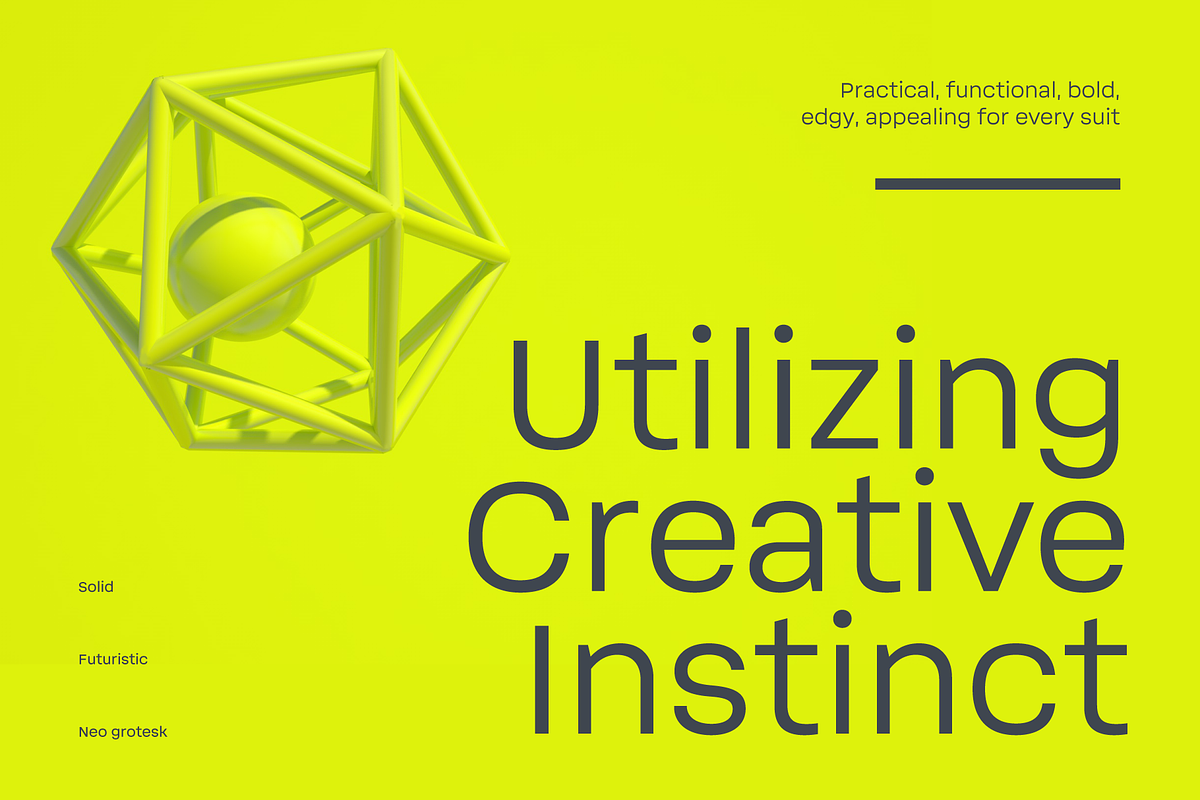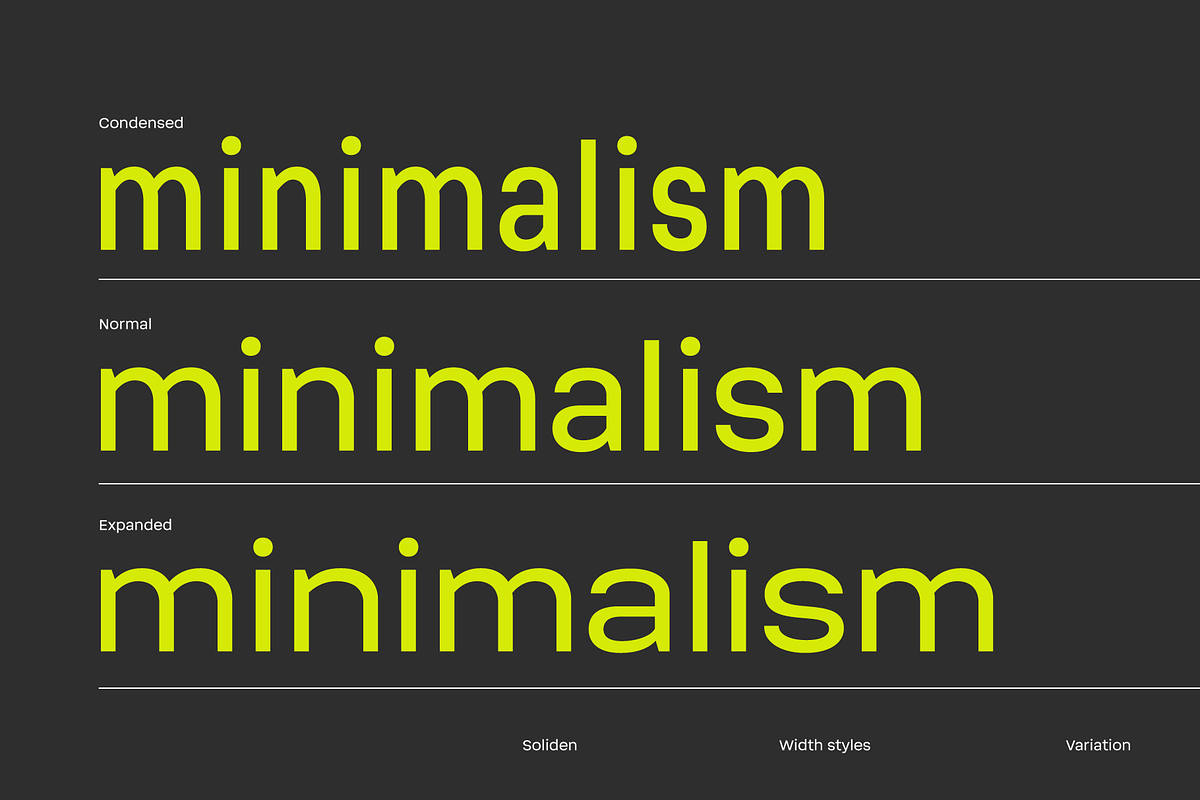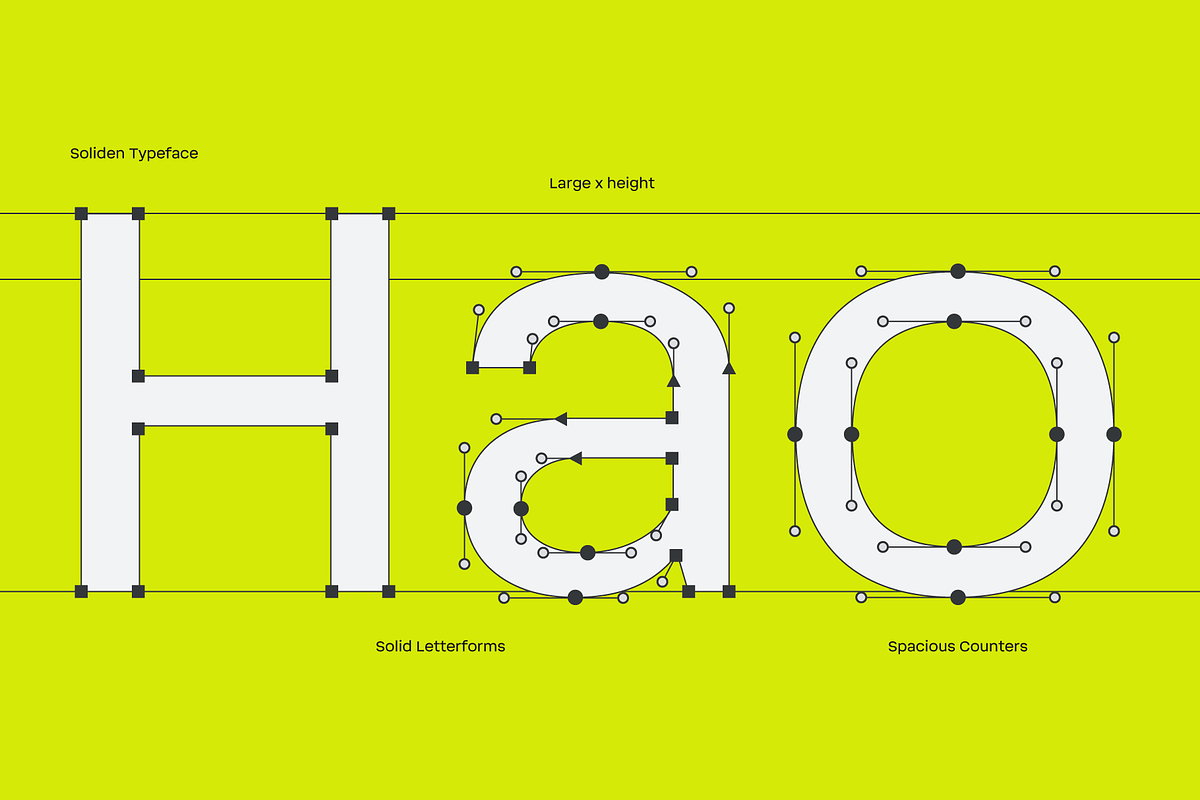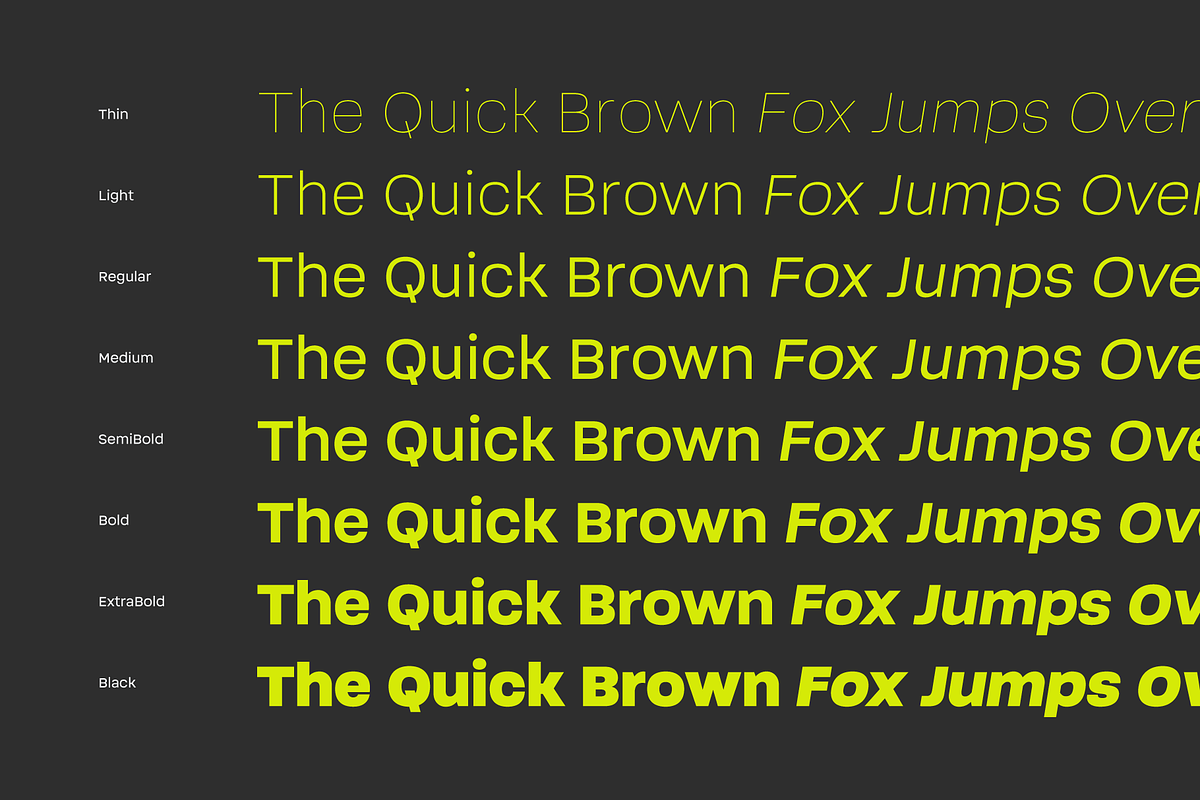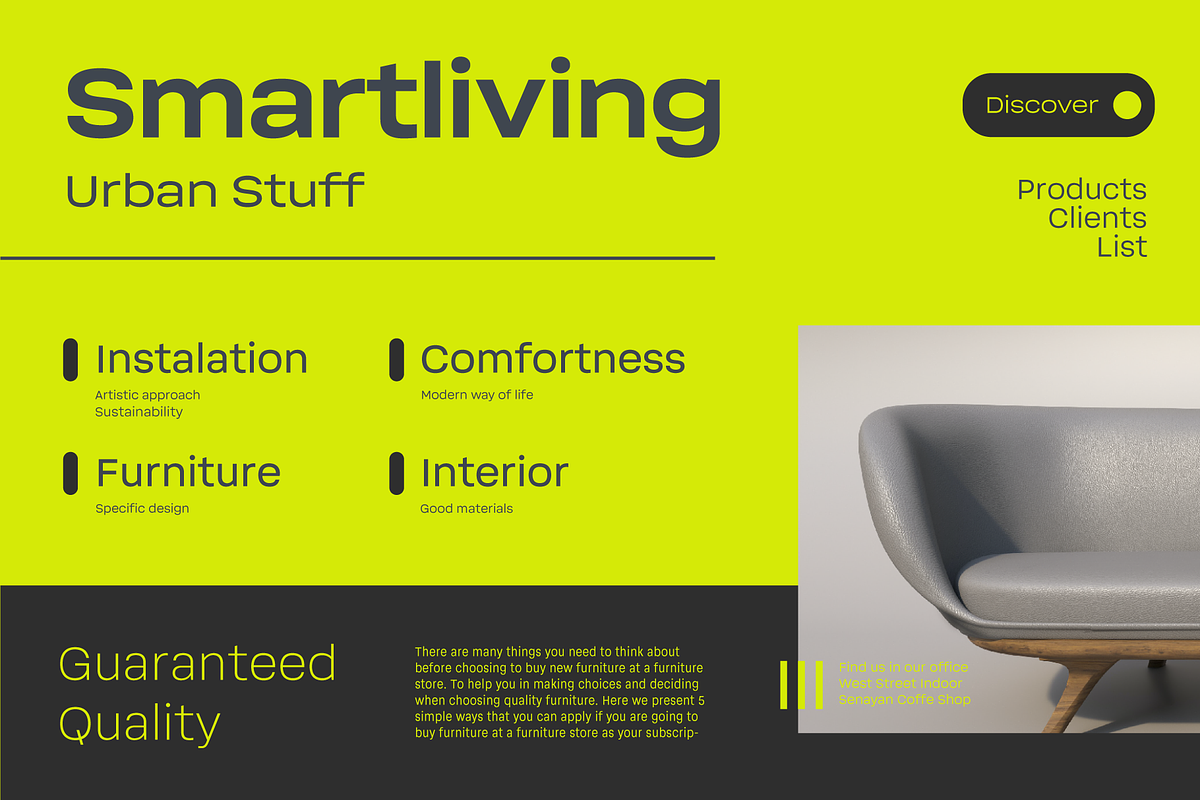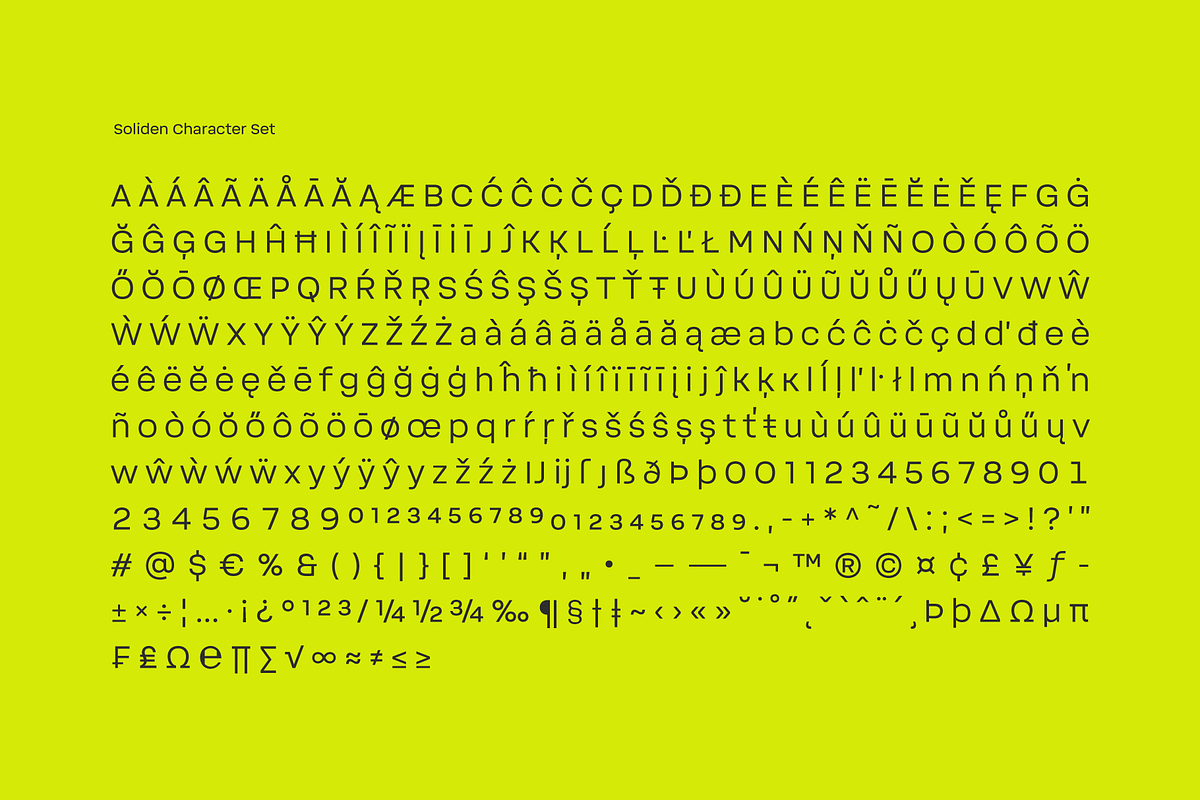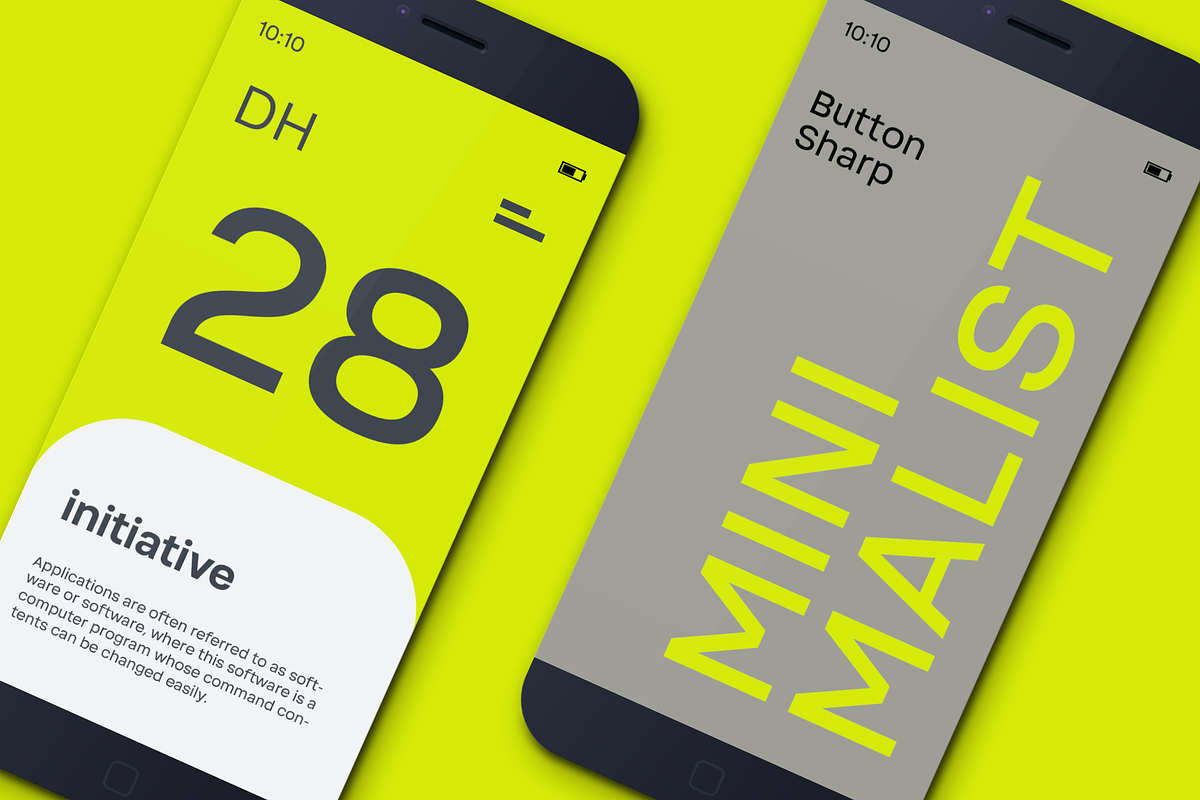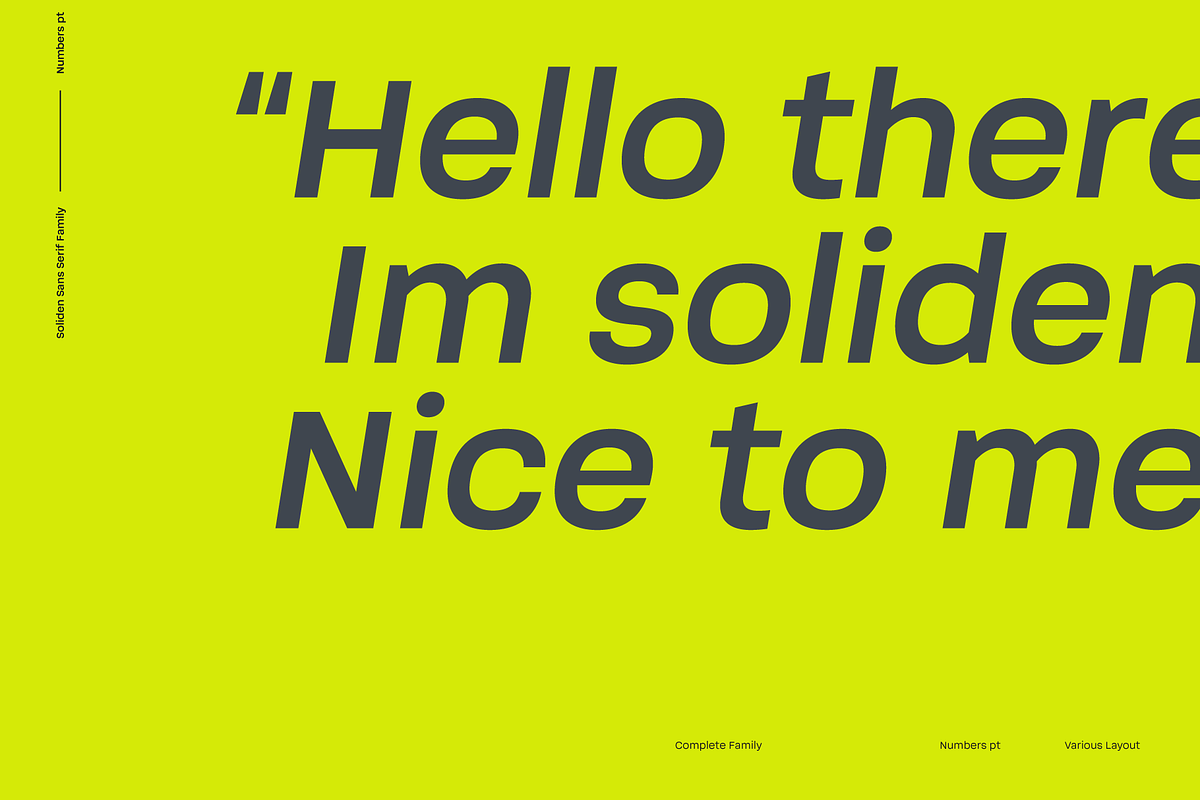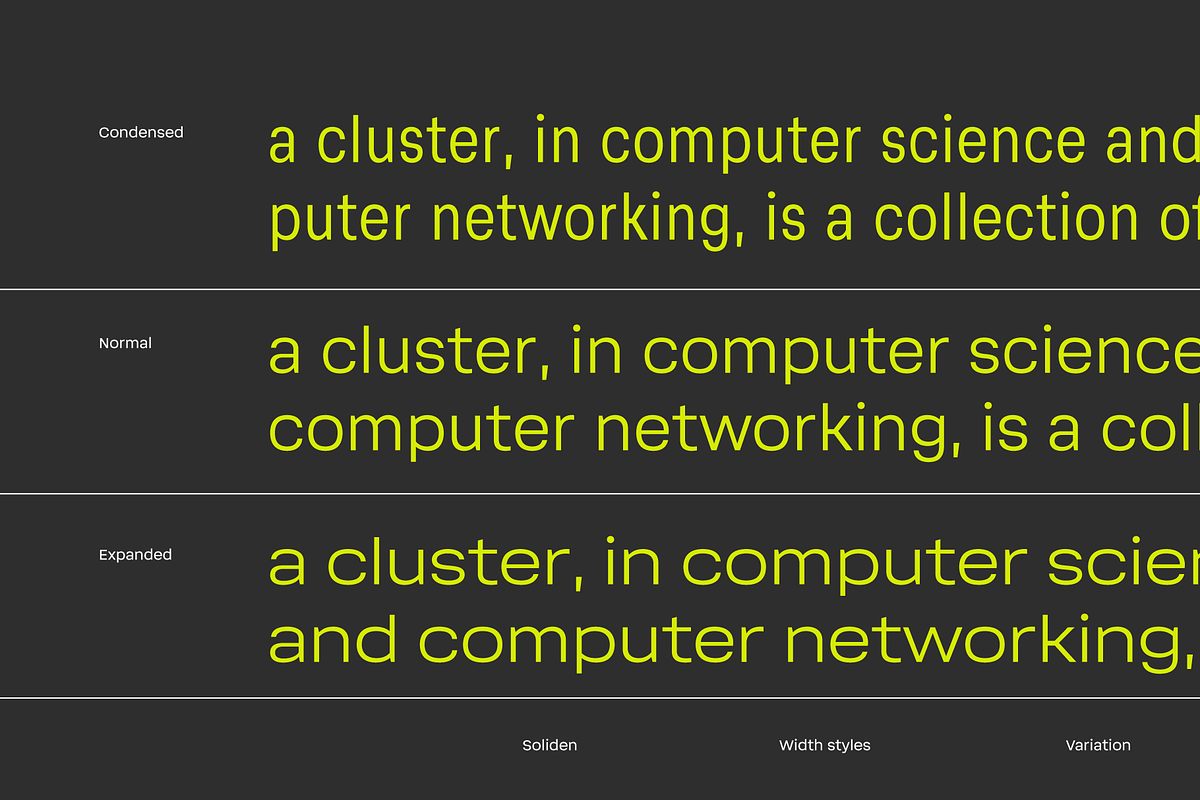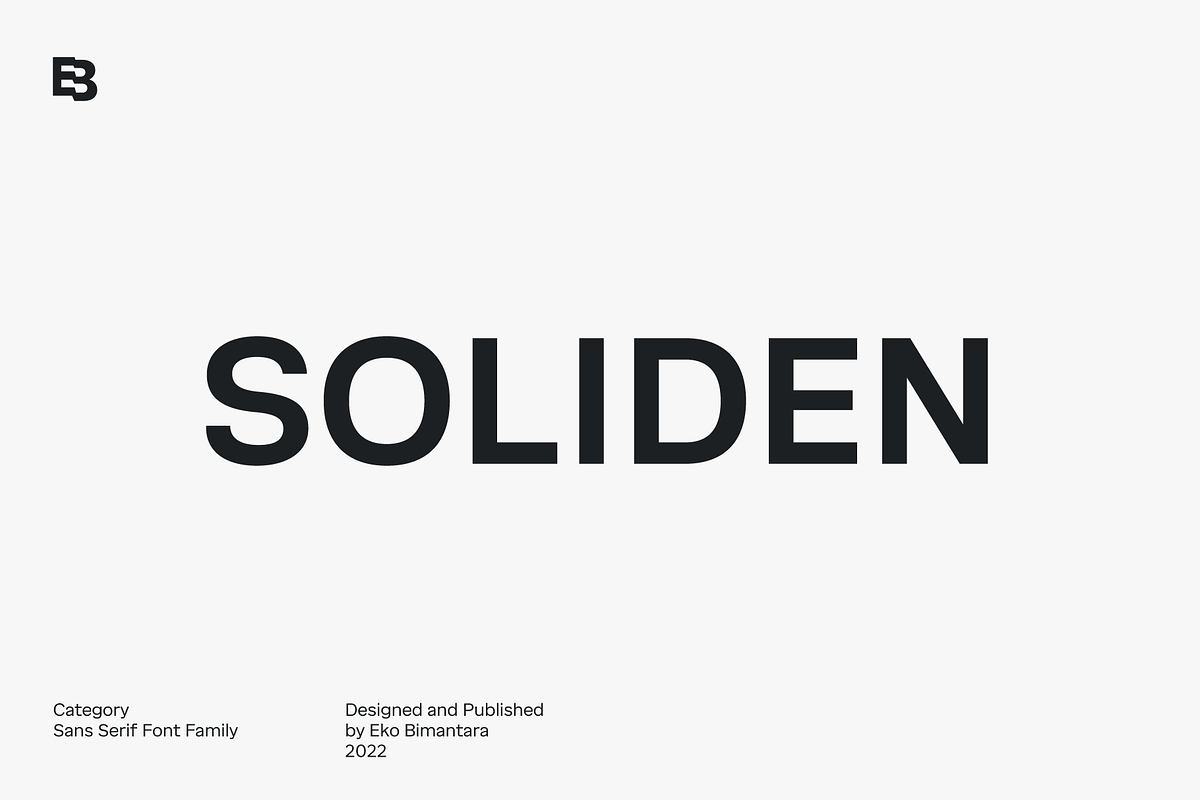
Soliden; 48 Fonts Sans Serif Family
Soliden is a modern and functional neo grotesk sans serif font family with bold and solid letterforms. Designed and published by Eko Bimantara in 2022, Soliden is an excellent choice for large display and functional design purposes. The letterforms are crafted with a large x-height and spacious counters, providing optimal legibility and visual appeal.
The font family consists of 8 weights ranging from Thin to Black and 3 widths, namely Condensed, Normal, and Expanded. This makes Soliden a versatile and expansive font family, with a total of 48 styles to choose from. Each weight also comes with matching oblique styles, allowing for a range of design possibilities.
Soliden contains 394 glyphs that cover a broad range of Latin-based languages, including standard Western European diacritics. Its an excellent choice for modern and functional design projects, including branding, advertising, editorial, and digital applications. Its bold and solid letterforms make it suitable for headlines, titles, and large display applications, while its legibility and functionality make it an ideal choice for body text and longer-form content.